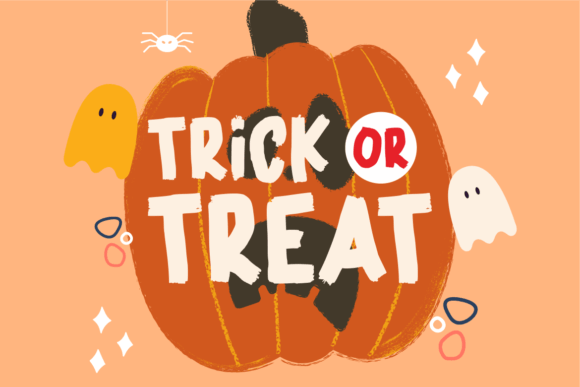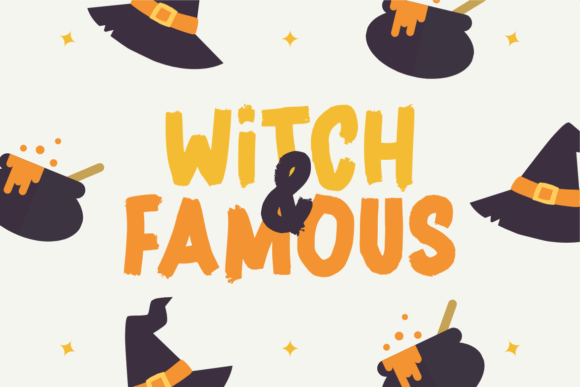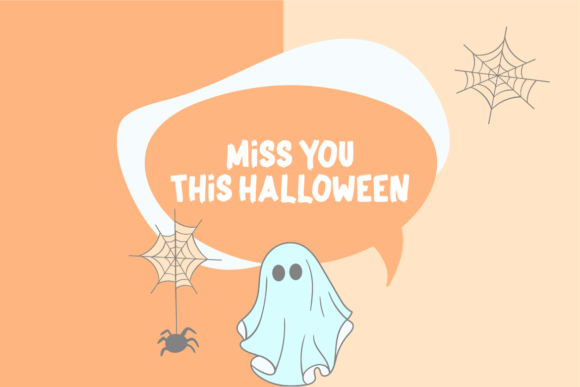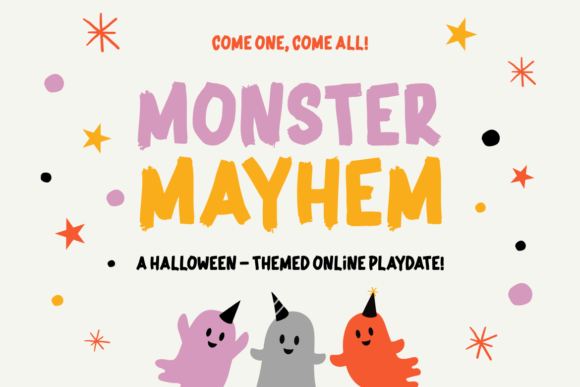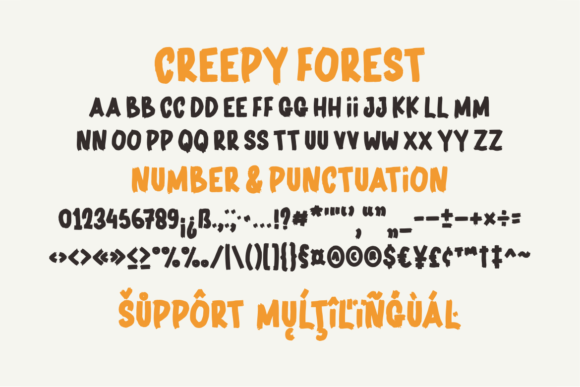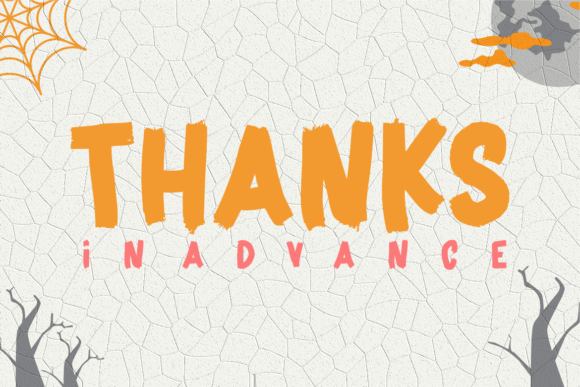
Introduction to Creepy Forest Font
Do you remember the feeling of excitement and trepidation when you’re working on a creative project, and you stumble upon the perfect design element? For designers, it’s a moment of pure joy, and it can make all the difference in bringing a project to life. For me, that moment came when I discovered the Creepy Forest Font – a whimsical and mysterious display font that’s perfect for all your horror-themed and Halloween projects.
As a designer, I know how valuable it is to have high-quality design resources at your fingertips. That’s why I’m excited to share with you the Creepy Forest Font, a free download that’s sure to add a touch of eeriness to your next creative project. With its transparent background and intricate details, this font is a must-have for any designer looking to add some depth and mystery to their designs.
Whether you’re working on a spooky Halloween-themed project or just want to add a touch of whimsy to your next design, the Creepy Forest Font is a valuable addition to any design resource library. So, let’s dive in and explore the world of this creepy and fun display font!
Key Features of Creepy Forest Font
- Unique and eerie design suitable for creative projects, especially those with a dark or mysterious theme.
- High-quality font with transparent background, ideal for use on images or designs where the background is visible.
- Supports a wide range of languages, making it a versatile font for international creative projects.
- Perfect for designers looking to add a touch of eeriness and mystery to their design projects.
Honest Review: Creepy Forest Font
I recently stumbled upon the Creepy Forest Font, and I must say it’s a great addition to any design resource. The font is perfect for creative projects that require a mysterious or eerie atmosphere.
- ✨ High-quality design: The font is well-crafted and visually appealing, making it perfect for designs that need a touch of creepiness.
- ✨ Transparent background: This allows designers to easily place the font over any background image, giving them complete control over the design.
- ⚠️ Limited character set: The font has a limited character set, which may not be suitable for designs that require a wide range of characters.
- ⚠️ Not suitable for large text: The font is best used for small to medium-sized text, as large text may become difficult to read.
Overall, I’m impressed with the Creepy Forest Font. It’s a great design resource that can add a unique touch to any creative project. However, its limitations should be taken into consideration before using it for large-scale designs or projects that require a wide range of characters.
The Creepy Forest Font is a unique and eerie font perfect for adding a touch of mystery to your creative project. With a transparent background, this font is highly versatile and can be used in a variety of design applications.
To get the most out of the Creepy Forest Font, experiment with different font sizes and colors to create a unique and captivating visual effect. You can also pair the font with other design elements, such as images and graphics, to create a high-quality design.
The Creepy Forest Font is perfect for a variety of creative projects, including horror movie posters, spooky themed websites, and Halloween decorations. Its eerie and mysterious vibe makes it an excellent choice for any project that requires a touch of the unknown.